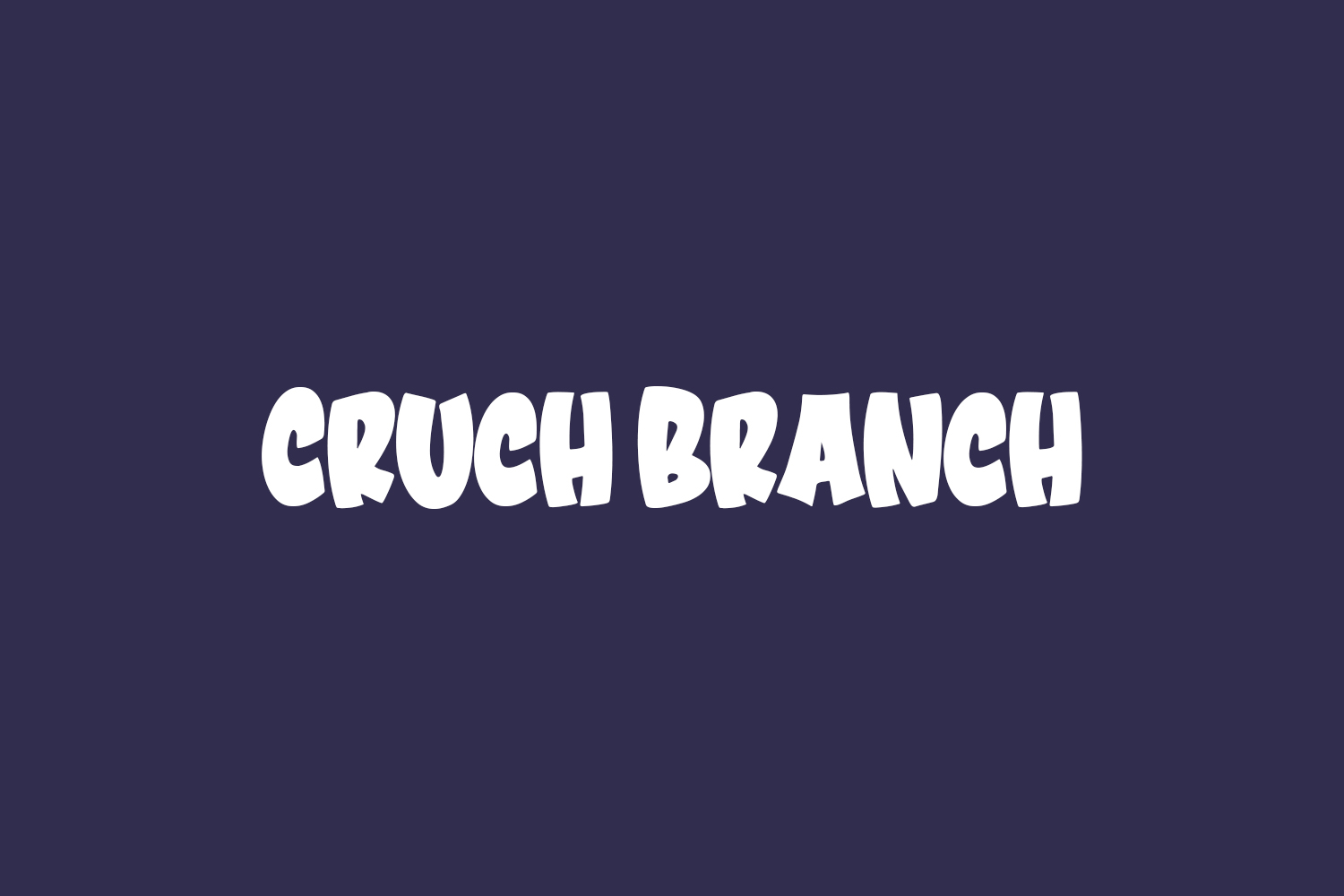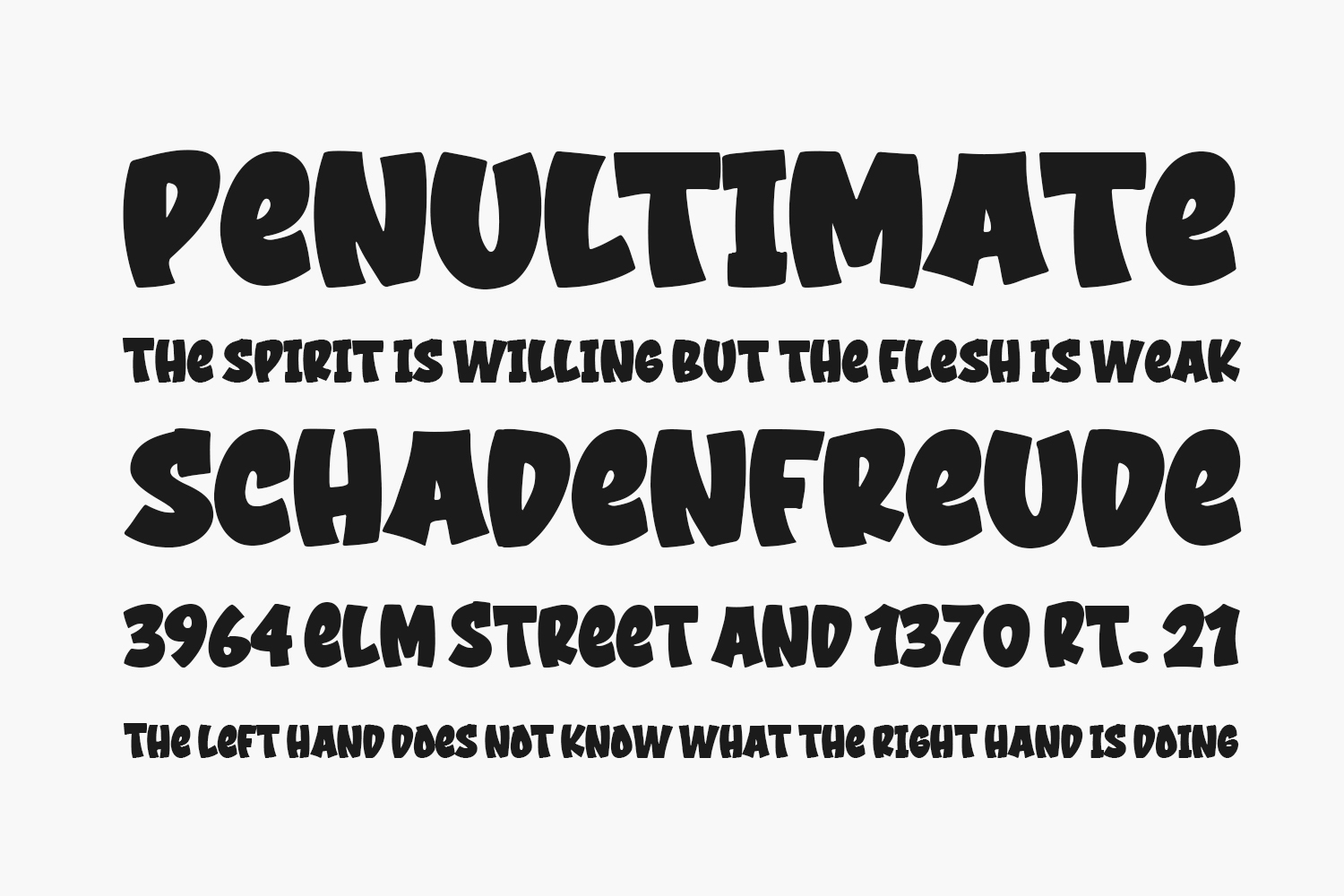
Cruch Branch Free Font Family is an energetic and playful display font that is ideal for a wide range of creative projects, including book covers, children’s books, comics, posters, packaging, merchandise, logo design, and more. If you’re searching for a font that exudes fun and uniqueness, Crunch Branch is the perfect choice. With its bold and bouncy appearance, it adds a delightful touch to your designs. Unleash your creativity and let Crunch Branch bring your comic/cartoon-inspired creations to life. Don’t miss out on the opportunity to incorporate this exceptional font into your projects and make them truly outstanding. Cruch Branch Free Font Family is free for personal or commercial use.
Designed by Bangkit Tri Setiadi